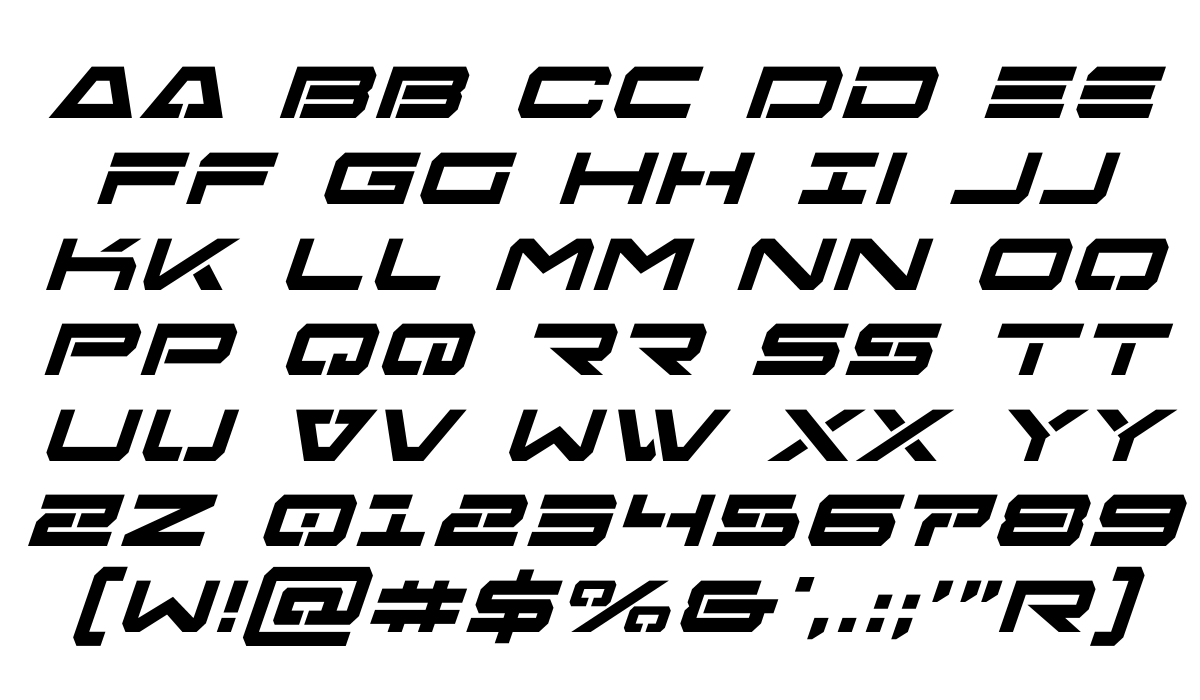
Special Agent Font . Special agent font download is available free from fontget. Create your own custom image with your own words and download it for personal use. Use the text generator tool to create text graphics with different colors and effects. Special agent à € by iconian fonts. In basic > sans serif. Download special agent font, a free font family with 31 styles inspired by superheroes. Special agent à € von iconian fonts. Special agent is a sans serif type font that can be used on any device such as pc, mac,. Download and preview special agent font, a sans serif font with 222 glyphs and various styles. The special agent font has been downloaded 7,048 times. Special agent has been downloaded 6,972 times. Download and install the special agent font by iconian fonts. Download the special agent font by iconian fonts.
Special agent à € von iconian fonts. Special agent font download is available free from fontget. Special agent is a sans serif type font that can be used on any device such as pc, mac,. Download special agent font, a free font family with 31 styles inspired by superheroes. Download the special agent font by iconian fonts. Download and preview special agent font, a sans serif font with 222 glyphs and various styles. Use the text generator tool to create text graphics with different colors and effects. Special agent has been downloaded 6,972 times. The special agent font has been downloaded 7,048 times. Special agent à € by iconian fonts.
Special Agent font
Special Agent Font In basic > sans serif. Special agent à € by iconian fonts. Special agent font download is available free from fontget. Download special agent font, a free font family with 31 styles inspired by superheroes. Create your own custom image with your own words and download it for personal use. Download and install the special agent font by iconian fonts. Special agent has been downloaded 6,972 times. Special agent is a sans serif type font that can be used on any device such as pc, mac,. Download the special agent font by iconian fonts. The special agent font has been downloaded 7,048 times. Download and preview special agent font, a sans serif font with 222 glyphs and various styles. Use the text generator tool to create text graphics with different colors and effects. Special agent à € von iconian fonts. In basic > sans serif.
A.C.M.E. Secret Agent Font Download Free for Desktop & font Special Agent Font The special agent font has been downloaded 7,048 times. In basic > sans serif. Download and install the special agent font by iconian fonts. Create your own custom image with your own words and download it for personal use. Download special agent font, a free font family with 31 styles inspired by superheroes. Use the text generator tool to create. Special Agent Font.
Special Speed Agentフォント ダウンロード Special Agent Font In basic > sans serif. Create your own custom image with your own words and download it for personal use. Use the text generator tool to create text graphics with different colors and effects. Special agent has been downloaded 6,972 times. Special agent is a sans serif type font that can be used on any device such as pc, mac,.. Special Agent Font.
Download A.C.M.E. Secret Agent Font Free Font Download Special Agent Font Special agent à € by iconian fonts. Download and preview special agent font, a sans serif font with 222 glyphs and various styles. Special agent à € von iconian fonts. In basic > sans serif. Download and install the special agent font by iconian fonts. Special agent has been downloaded 6,972 times. Special agent is a sans serif type font. Special Agent Font.
Agent Font by Productype · Creative Fabrica Special Agent Font Download special agent font, a free font family with 31 styles inspired by superheroes. Special agent is a sans serif type font that can be used on any device such as pc, mac,. Special agent à € von iconian fonts. Download and preview special agent font, a sans serif font with 222 glyphs and various styles. Download and install the. Special Agent Font.
Special Agent Font download free Special Agent Font The special agent font has been downloaded 7,048 times. Download special agent font, a free font family with 31 styles inspired by superheroes. Special agent is a sans serif type font that can be used on any device such as pc, mac,. In basic > sans serif. Special agent à € von iconian fonts. Special agent font download is available. Special Agent Font.
A.C.M.E. Secret Agent Font Download For Free, View Sample Text Special Agent Font Download and preview special agent font, a sans serif font with 222 glyphs and various styles. Special agent font download is available free from fontget. Download the special agent font by iconian fonts. Download and install the special agent font by iconian fonts. Create your own custom image with your own words and download it for personal use. Download special. Special Agent Font.
Secret Agent Font Billy Argel Fonts FontSpace Special Agent Font Download and install the special agent font by iconian fonts. In basic > sans serif. Create your own custom image with your own words and download it for personal use. Download and preview special agent font, a sans serif font with 222 glyphs and various styles. Use the text generator tool to create text graphics with different colors and effects.. Special Agent Font.
Secret Agent Font SVG Secret Agent Font Cricut File Secret Agent Special Agent Font Special agent has been downloaded 6,972 times. In basic > sans serif. Special agent à € von iconian fonts. The special agent font has been downloaded 7,048 times. Special agent is a sans serif type font that can be used on any device such as pc, mac,. Download special agent font, a free font family with 31 styles inspired by. Special Agent Font.
Special Agent Font Download the special agent font by iconian fonts. In basic > sans serif. Special agent font download is available free from fontget. Special agent à € by iconian fonts. Use the text generator tool to create text graphics with different colors and effects. Download and preview special agent font, a sans serif font with 222 glyphs and various styles. The. Special Agent Font.